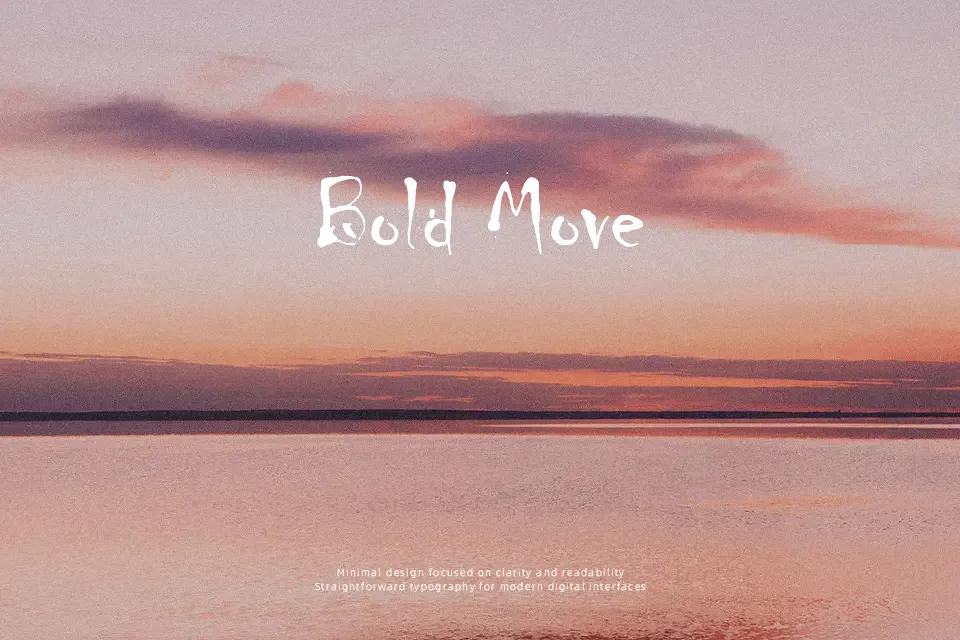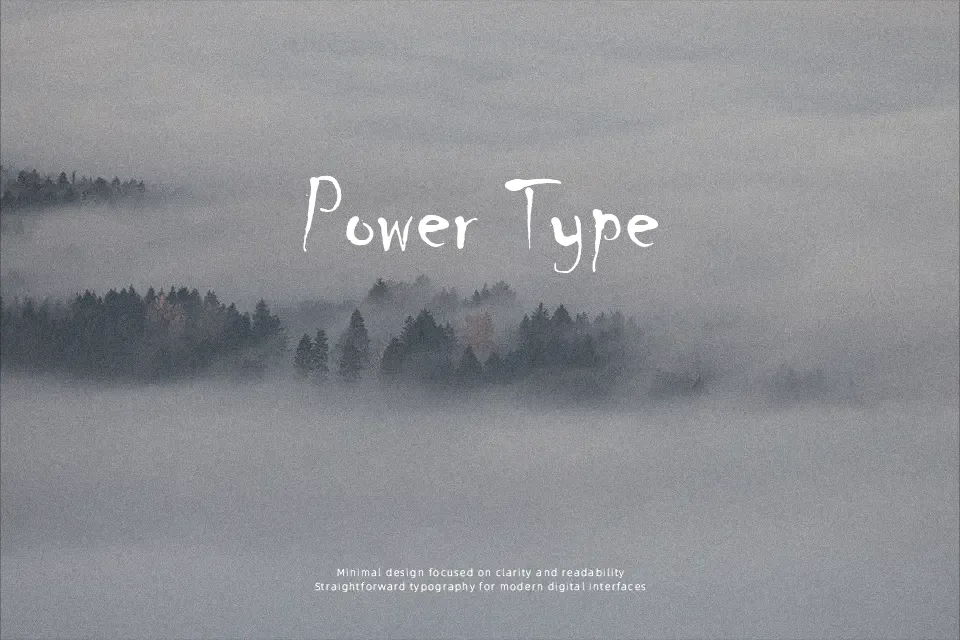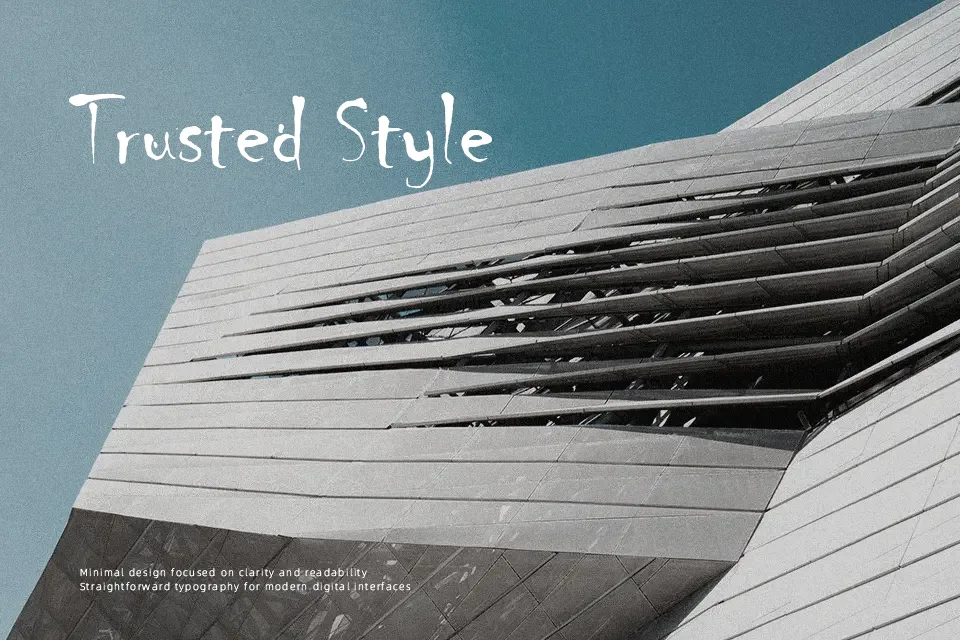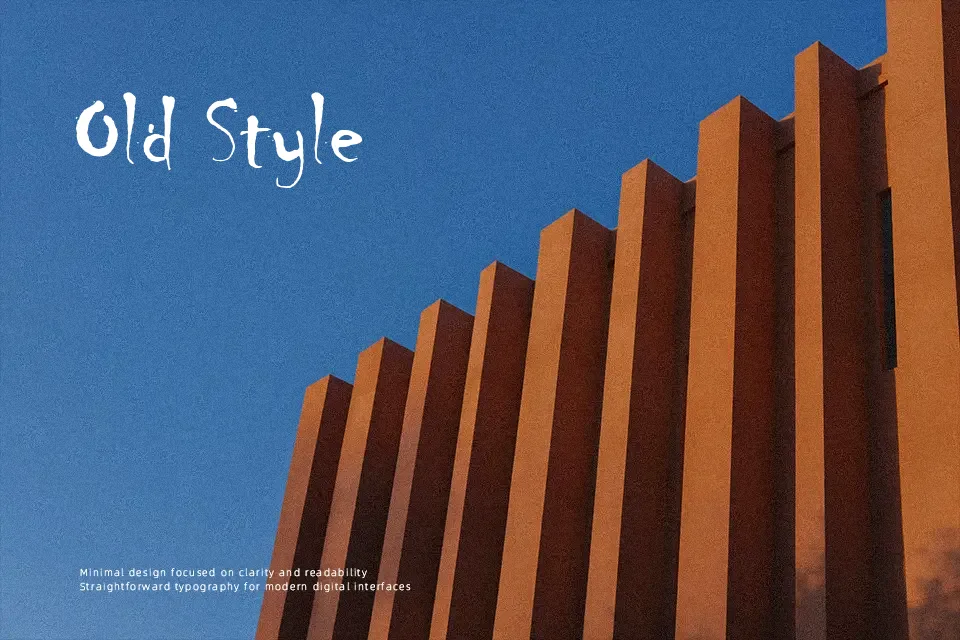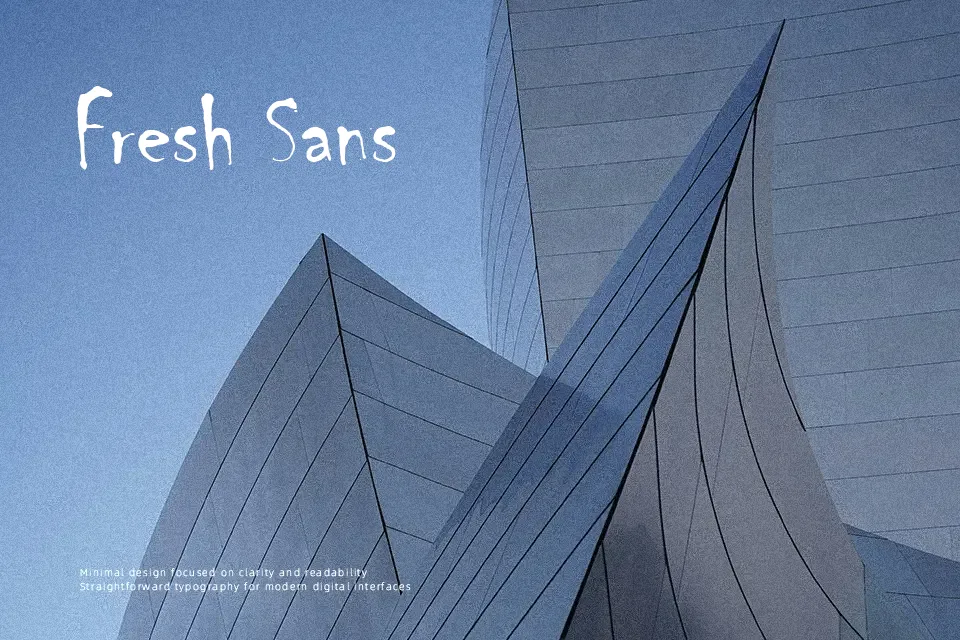
Chiller Font
Designed by Andrew Smith
If you want typography that feels dangerous and unsettled, Chiller Font immediately delivers a sense of chaotic energy. Created by British designer Andrew Smith in 1995 for ITC, this experimental display typeface is famous for its jagged, highly irregular strokes and splattered, ink-like textures. The letterforms are deliberately distorted and aggressive, perfectly mimicking the frantic, terrifying handwriting of a madman or a hastily scrawled warning.
Because of its incredibly strong, unsettling aesthetic, this typeface is the definitive choice for horror-themed designs, such as scary movie posters, Halloween event flyers, and edgy rock band merchandise. However, this same jagged distortion makes it entirely unusable for professional corporate documents or user interfaces; the erratic shapes completely destroy legibility at smaller text sizes and in dense paragraphs. It remains a legendary, highly specific novelty font.
– horror movie posters
– haunted house signage
– halloween event flyers
– edgy band merchandise
– professional corporate documents
– clean user interfaces
– dense body paragraphs